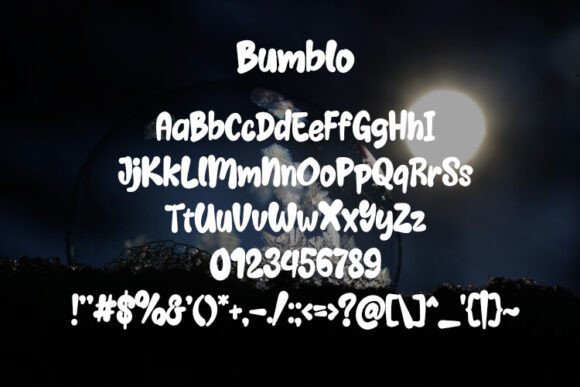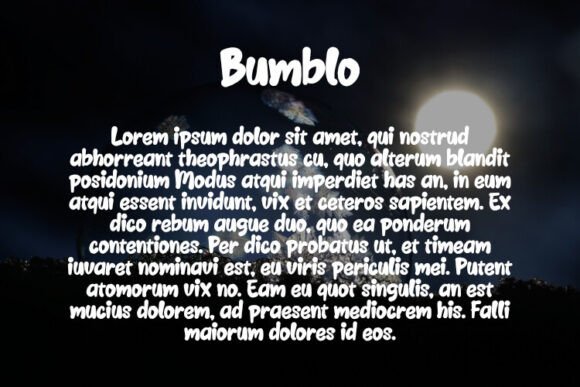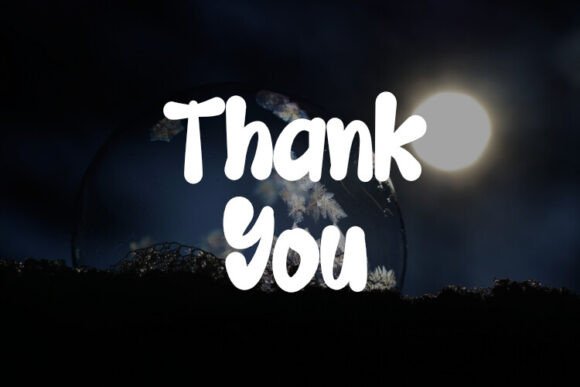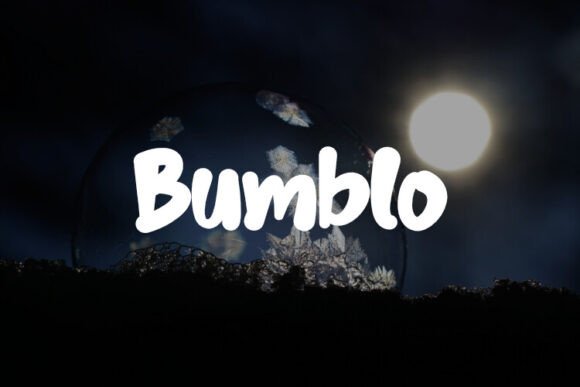
Bumblo Font: The Ultimate Design Companion for Fashion and Craft
“Bumblo” is a versatile and stylish font designed specifically for creating stunning designs on clothes, t-shirts, and various other products. Whether you are a professional designer or a crafty DIY enthusiast, Bumblo font is here to elevate your creative game. This font is compatible with all designs and software, making it an essential tool in your design arsenal. Included with the font is an OTF (OpenType Font) file, ensuring seamless integration across different platforms.
Bumblo font stands out due to its unique blend of style and adaptability. Here are some key features that make Bumblo a go-to font for designers and crafters:
• Suitable for Various Products: Whether you are designing for clothes, t-shirts, mugs, or any other product, Bumblo font is up to the task. Its clear and stylish appearance makes it perfect for both digital and print designs.
• Enhanced Creativity: Bumblo font opens up new creative possibilities for your designs. Its unique style and compatibility with various software and products allow you to experiment with different ideas and bring your imagination to life.
Bumblo font is a valuable addition to any designer’s or crafter’s toolkit. Its versatility, compatibility, and high-quality appearance make it an ideal choice for creating stunning designs on clothes, t-shirts, and various other products. With the included OTF file, you can enjoy seamless integration across different platforms and software. Whether you are a professional designer or a DIY enthusiast, Bumblo font is designed to help you achieve professional-looking results with ease. So, why wait? Download Bumblo font today and take your designs to the next level!